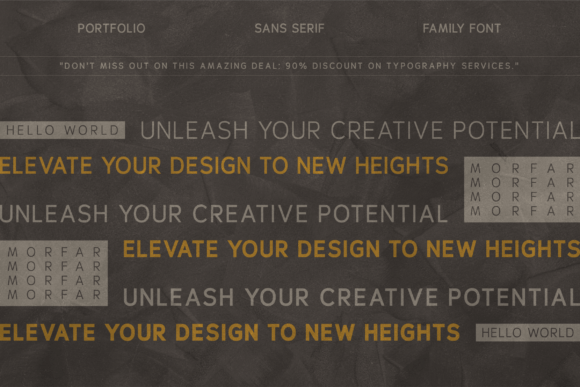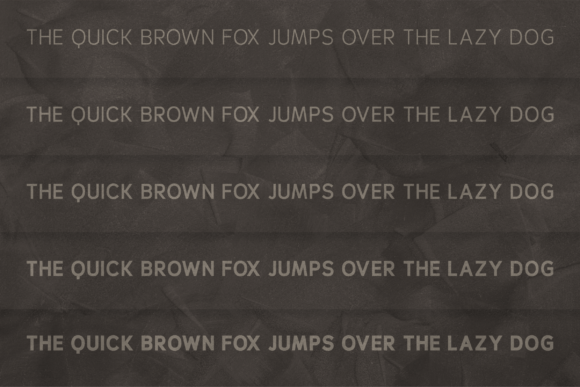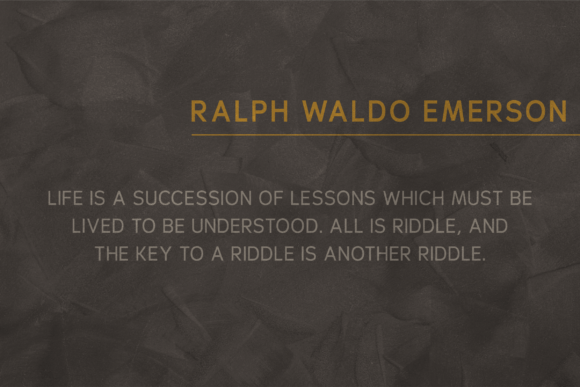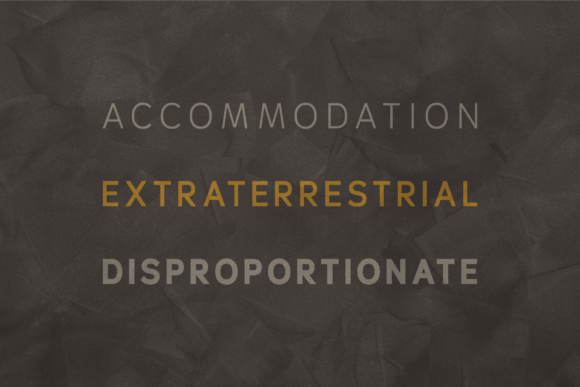
Discovering the Perfect Font: A Designer’s Journey
As a designer, you’ve probably experienced that moment when everything falls into place – the colors, the typography, the composition – and you know you’ve created something special. For me, it was a late-night project, working on a magazine cover, and I was struggling to find the right font to convey the perfect blend of elegance and sophistication. That’s when I stumbled upon Morfar Font, and my design world was forever changed.
With Morfar Font, designers can unlock a new level of creativity and elevate their projects to new heights. This meticulously crafted sans-serif font family offers unparalleled versatility, making it an invaluable design resource for any creative project. Whether you’re working on a film poster, a logo, or a magazine spread, Morfar Font’s 5 distinct weights ensure a seamless adaptation to your design needs.
Introduction to Morfar Font
Key Features of Morfar Font
- Features a unique, modern design with a transparent background, allowing for versatile use in various applications.
- Supports a wide range of languages, making it an ideal choice for international creative projects.
- Perfect for designers and artists looking for a high-quality, free design resource to enhance their creative projects.
Honest Review: Morfar Font
I recently had the opportunity to experiment with the Morfar Font, and I must say it’s been a great addition to my design resource library. The font’s unique blend of modern and vintage elements makes it perfect for a wide range of creative projects.
What works well: ✨ The font’s high quality is evident in its crisp lines and smooth typography. I particularly appreciate the transparent background, which makes it easy to layer and customize in my designs.
Here are some of the font’s standout features:
- Features a clean and minimalist aesthetic, perfect for modern branding and design projects
- Highly versatile, suitable for a variety of creative applications, from print to digital media
⚠️ However, I do wish the font had a more extensive character set, as some special characters and languages are not supported.
Overall, I’m impressed with the Morfar Font and would definitely recommend it to designers looking for a high-quality, free design resource. Its unique style and versatility make it a valuable addition to any design library.
Tips for Getting the Most Out of Morfar Font
Use the Morfar Font in conjunction with a transparent background to create a clean and modern design. Experiment with different font sizes and styles to add visual interest to your design. Use the font in creative projects such as logos, business cards, and brochures.
Common Use Cases for Morfar Font
The Morfar Font is commonly used in creative projects such as logos, business cards, and brochures. It’s also used in presentations and documents to add a touch of sophistication and elegance. The font’s high-quality design makes it a popular choice among designers and non-designers alike.
Can I use the Morfar Font for a transparent background?
Yes, the Morfar Font is designed to work well with transparent backgrounds. Since it has a transparent background, you can easily layer it over images or other design elements without any issues.
Is the Morfar Font suitable for high-resolution printing?
Yes, the Morfar Font is designed to be high-quality and suitable for high-resolution printing. It has been optimized for use in a variety of creative projects, from business cards to billboards.